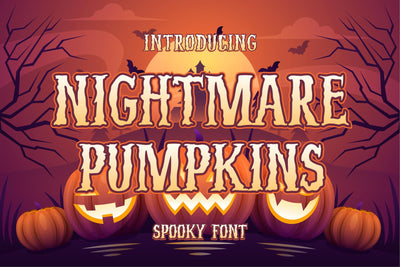
Nightmare Pumpkins - Spooky Font
Nightmare Pumpkins is a very strong and spooky font which is inspired by the Halloween time, its perfect for branding, clothing design, logos, posters, prints, etc
- Multi-Language Support with accent
- Numeral and Punctuations